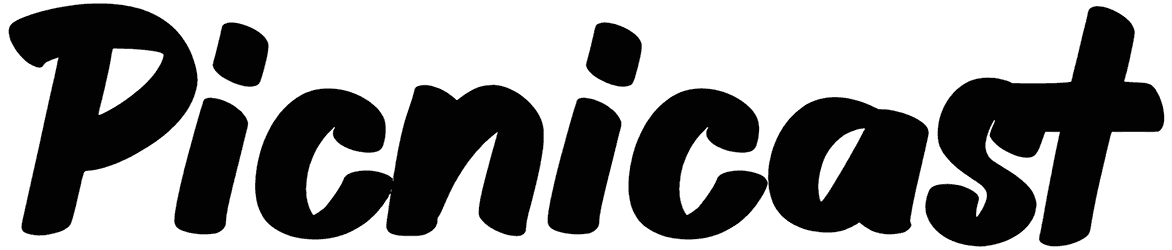
Picnicast Font
To add a professional touch to your work, try using the script font Picnicast. Its marker-like appearance makes it seem more casual and informal than other fonts. You will undoubtedly be on point if you use this bold font on posters, greeting cards, quotes, and the like.